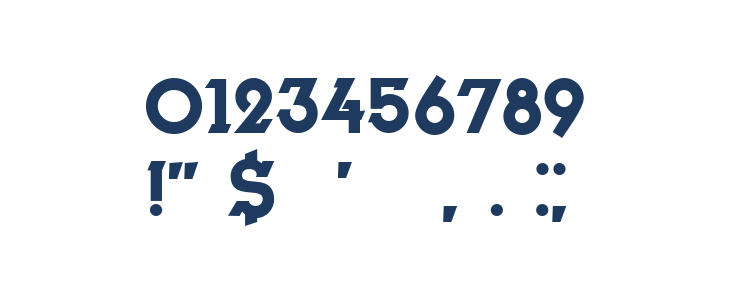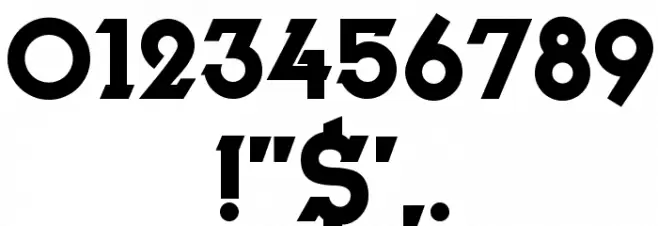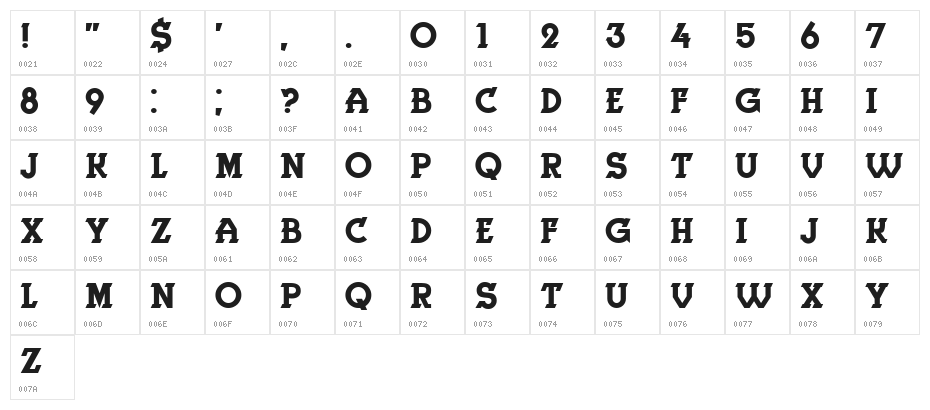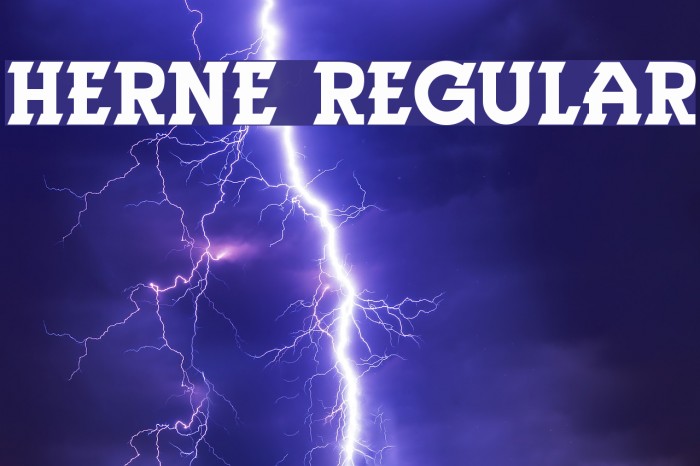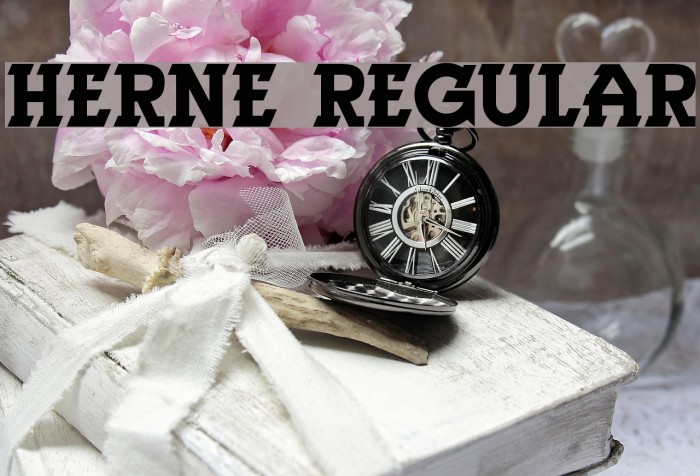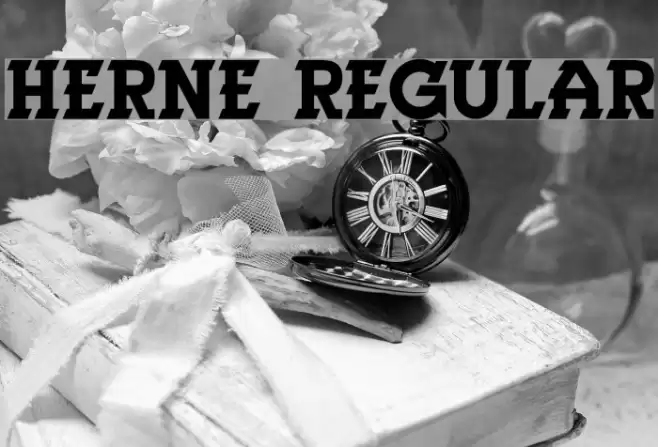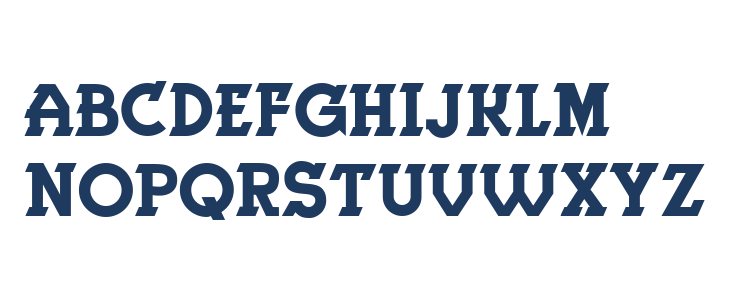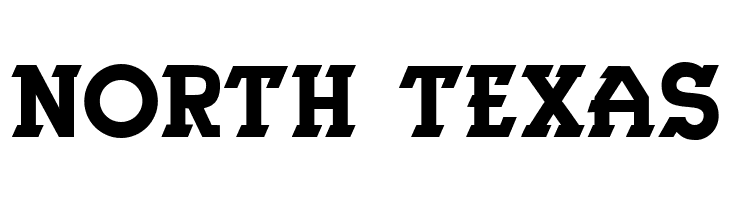
Herne Regular Font
Herne Regular Description
This font features a bold and impactful design with strong, angular serifs that give it a distinctive and authoritative appearance. The characters are well-defined with a consistent stroke width, creating a uniform look across both uppercase and lowercase letters. The numbers and special characters maintain the same bold style, ensuring readability and visual coherence. The overall design is modern yet retains a classic touch, making it versatile for various applications. The font's boldness and clarity make it suitable for headlines and titles, where attention-grabbing text is essential.
| Proposed Projects | Ideal for branding, advertising, headlines, posters, and any design requiring a strong visual impact. |